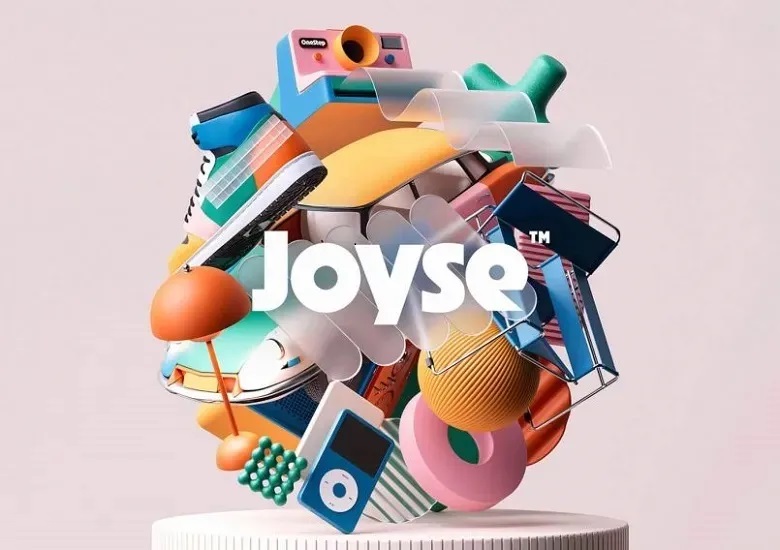
Joyse Font
Joyse is a sans serif typeface for display use that reflects the atmosphere of mid-century modernism while having some contemporary features as well. Best suited for creating strict and uncompromising logos, striking posters, covers and recognizing number of magazines, and any visual identification that opens with the purpose to stay inimitable. This font has over 540 glyphs, 30 of which are additional, plus it supports 90 different languages.
Joyse Sans Serif Font